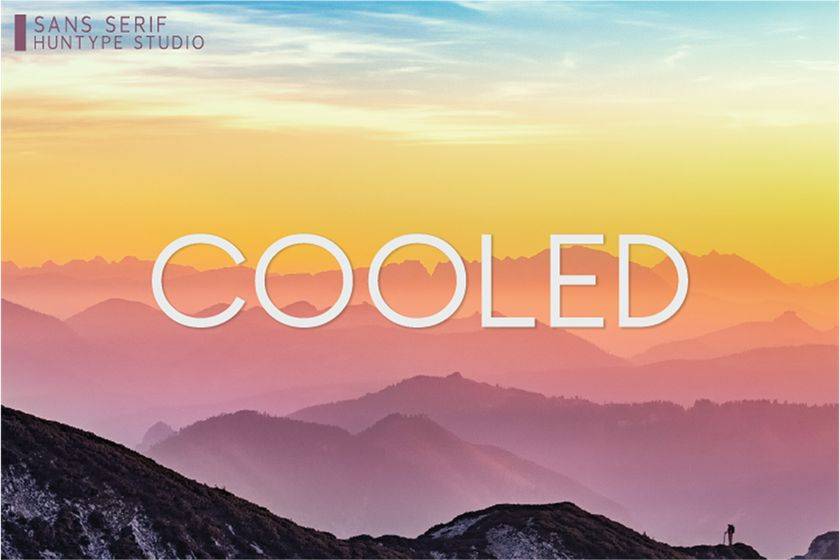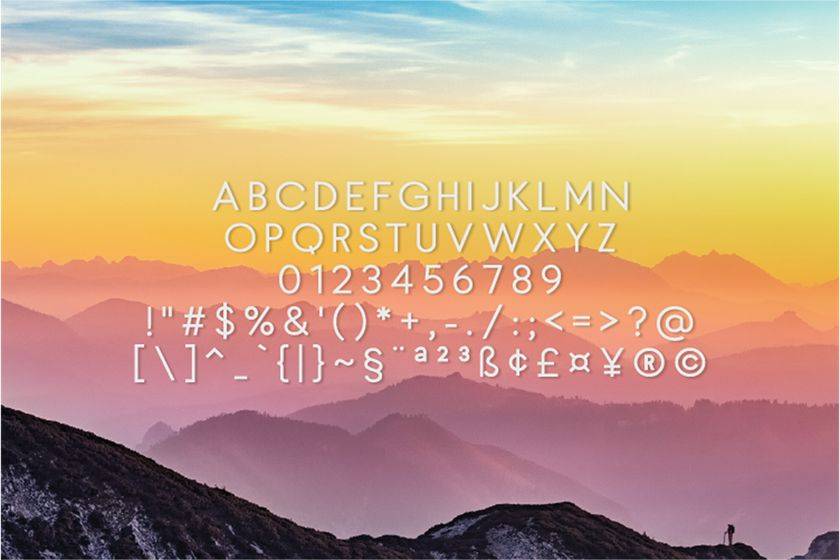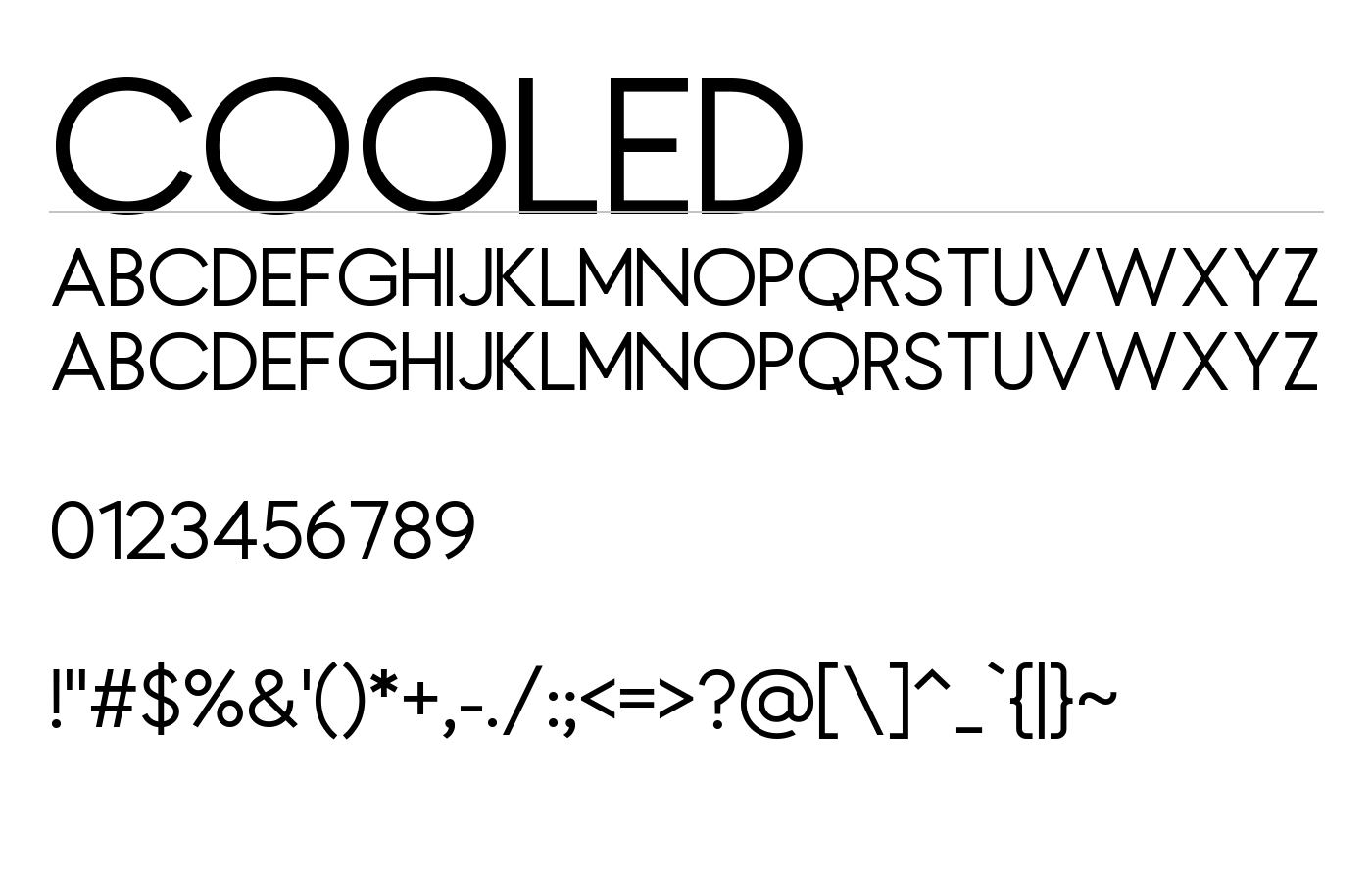
Cooled Font is a sleek, modern sans serif typeface with clean, geometric lines and a consistent, light stroke weight that gives it an airy and elegant feel. Its tall x-height and open letterforms make it highly legible, while its minimalist design lends a contemporary, professional tone perfect for branding, editorial headlines, and stylish web use. This font works well wherever a fresh, sophisticated look is desired without sacrificing clarity or simplicity.
Cooled Font
About Cooled Font
| Font family | Cooled Font |